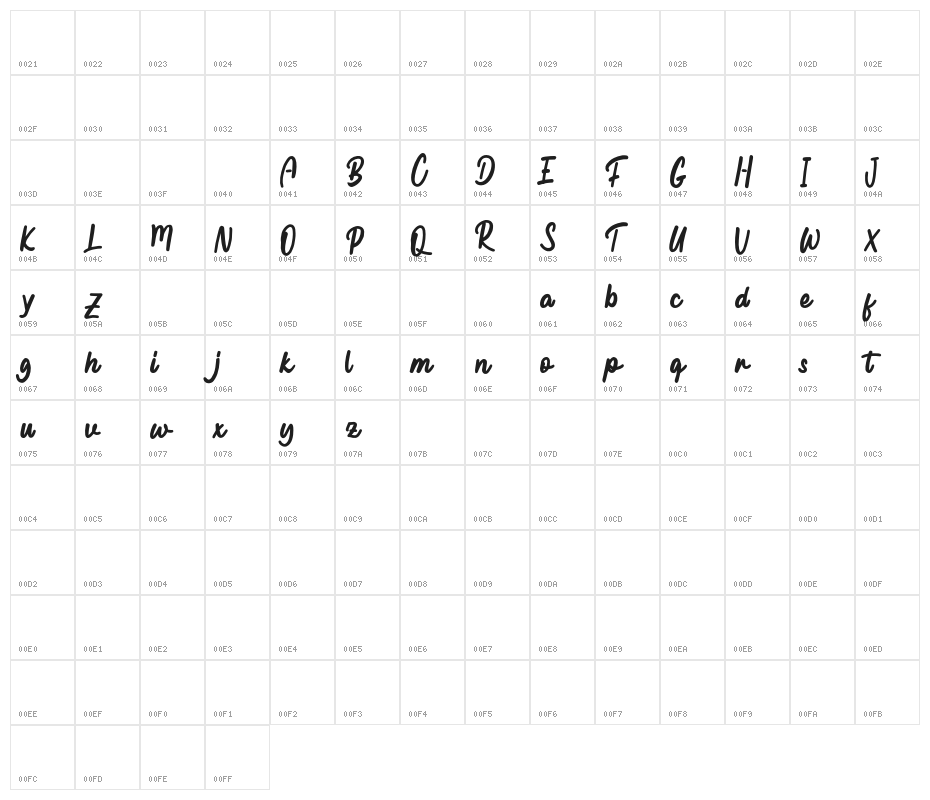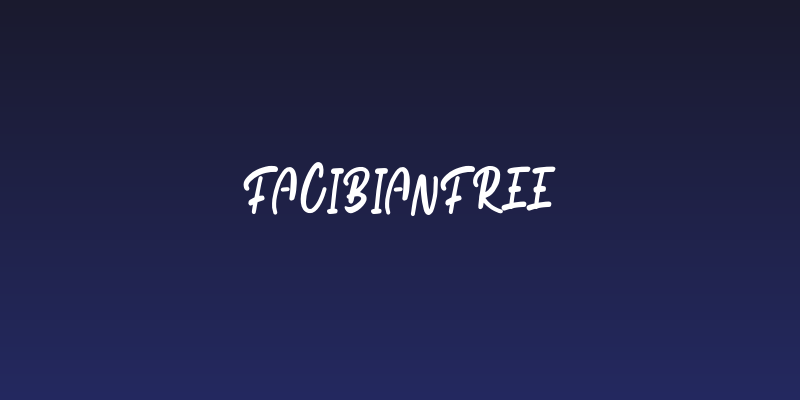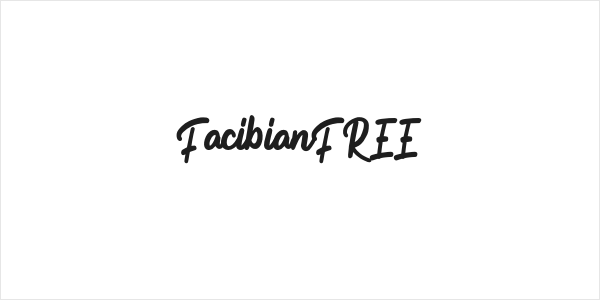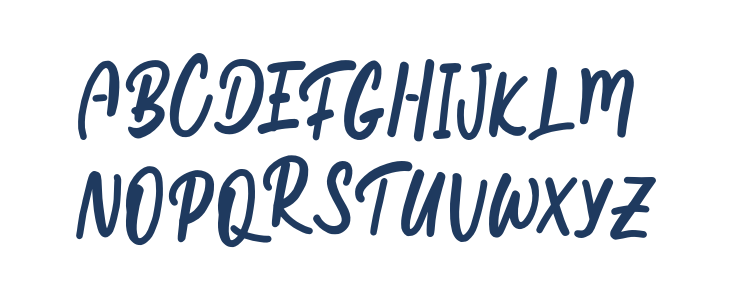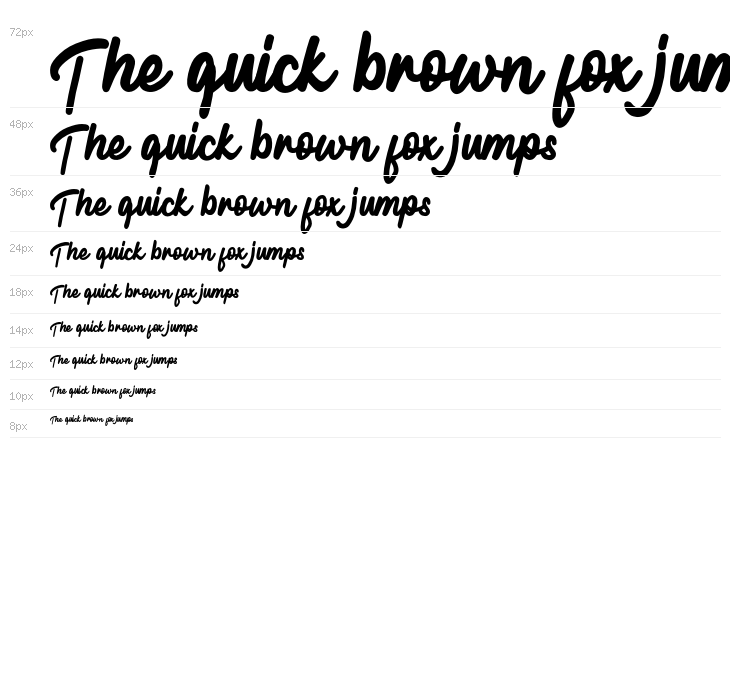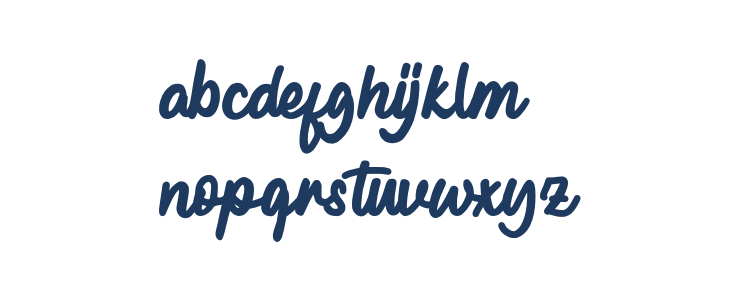
FacibianFREE Font
FacibianFREE Description
A playful, handwritten script font with smooth, rounded strokes and a casual, energetic feel. The characters are slightly slanted, with variable stroke thickness and a natural, flowing baseline.
| Overall Style | Decorative, Playful, Modern |
| Use Case | Logos, Headlines, Posters, Social media graphics |
| Proposed Projects | Greeting cards, invitations, playful branding, social media graphics, posters. |